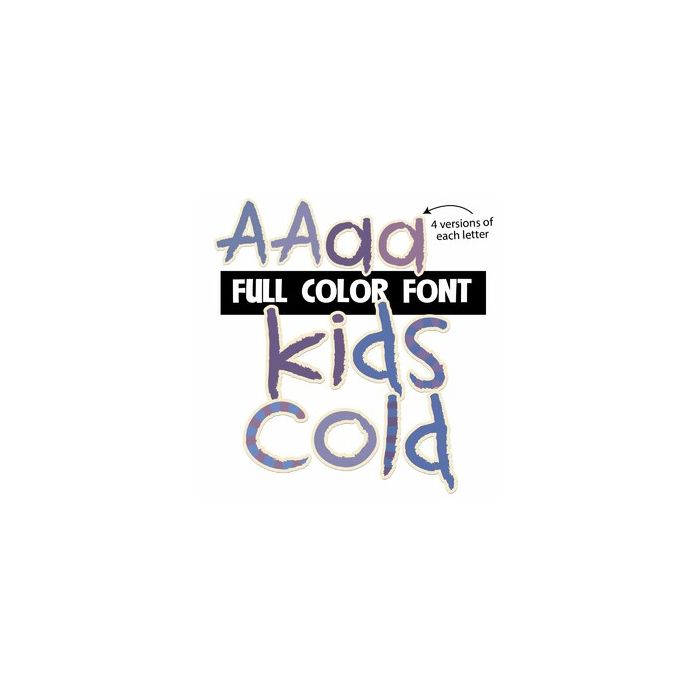
This youthful full-color font features child-like lettering in a cold color palette. You can access a second color of each letter by using the alt characters in Silhouette's glyph map.